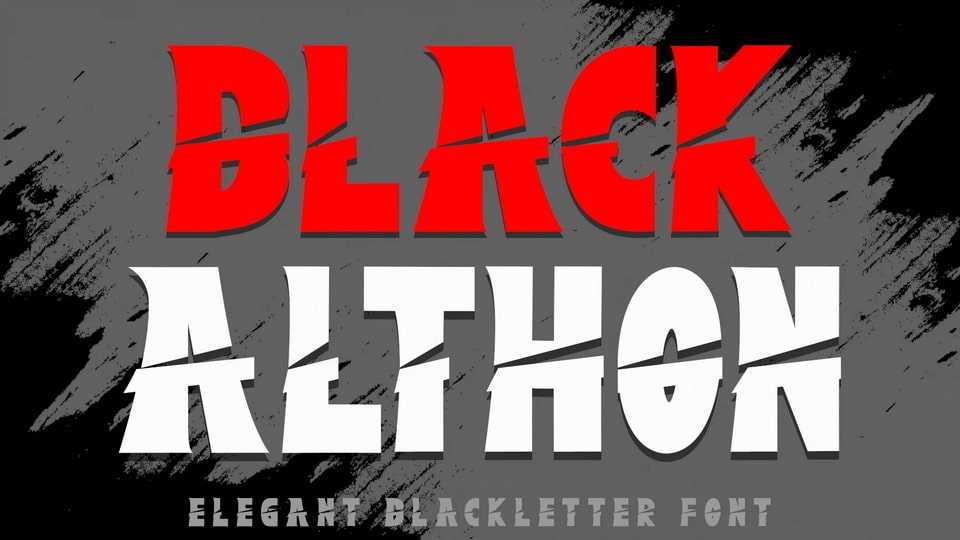
Download Black Althon font, a bold and unique blackletter typeface. It is very suitable for use as a movie font, movie title, metal concert, business branding, sticker, poster, banner, logo, print and others.